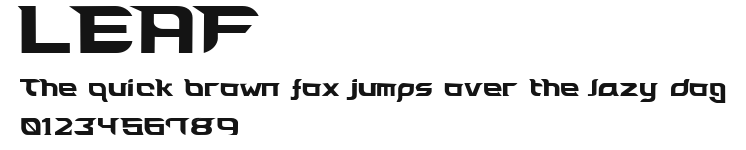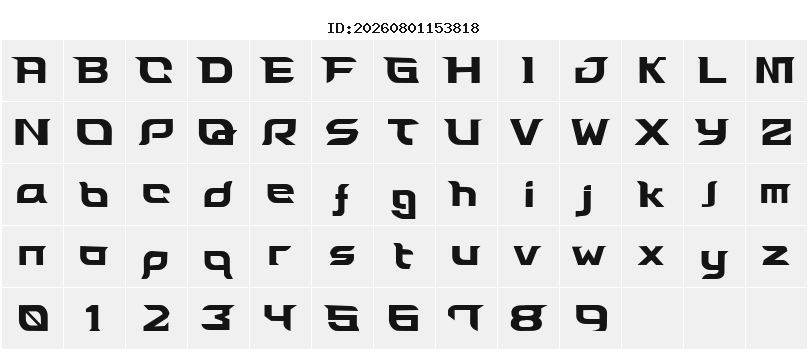
• Font Name: LEAF
• Full Font Name: LEAF
• Copyright: (c)Iwata Shono DesignUnit.//1998 MAGI InterDesign.//
LEAF.ttf is a modern, elegant sans-serif font designed for ultimate readability and visual harmony. Perfect for branding, headlines, web design, and print materials.